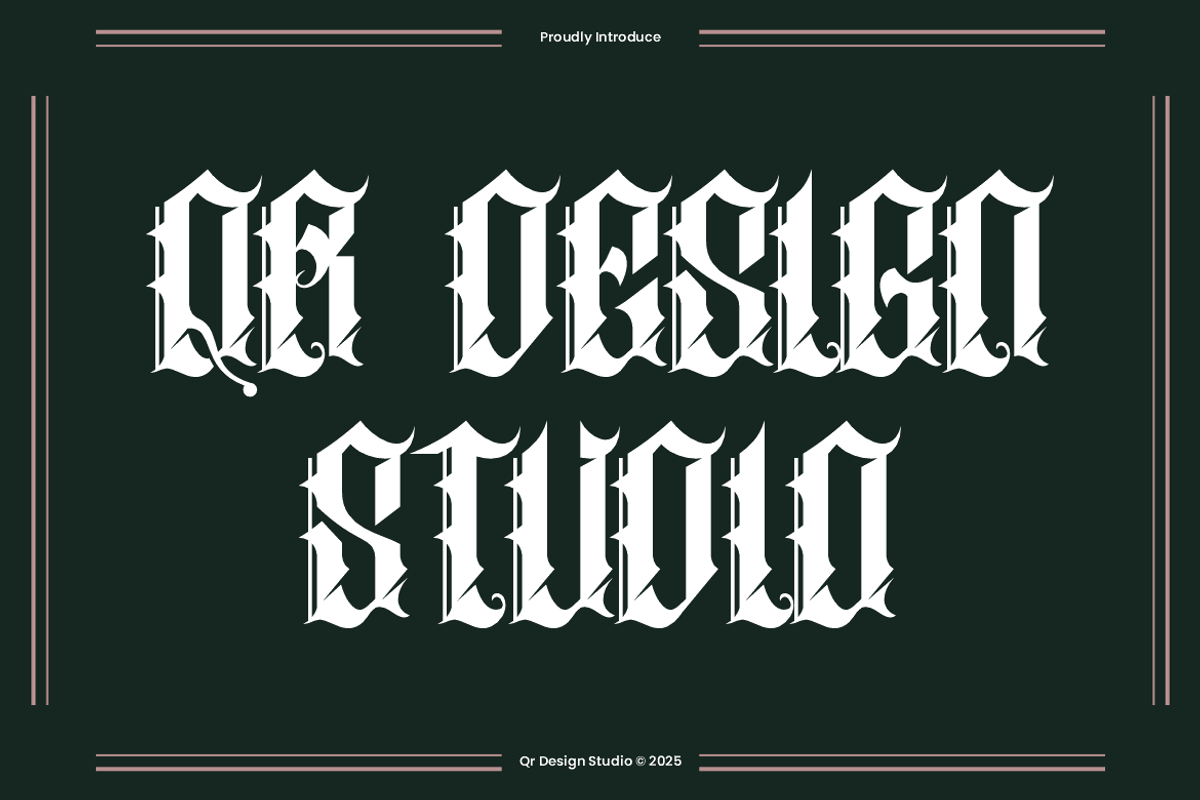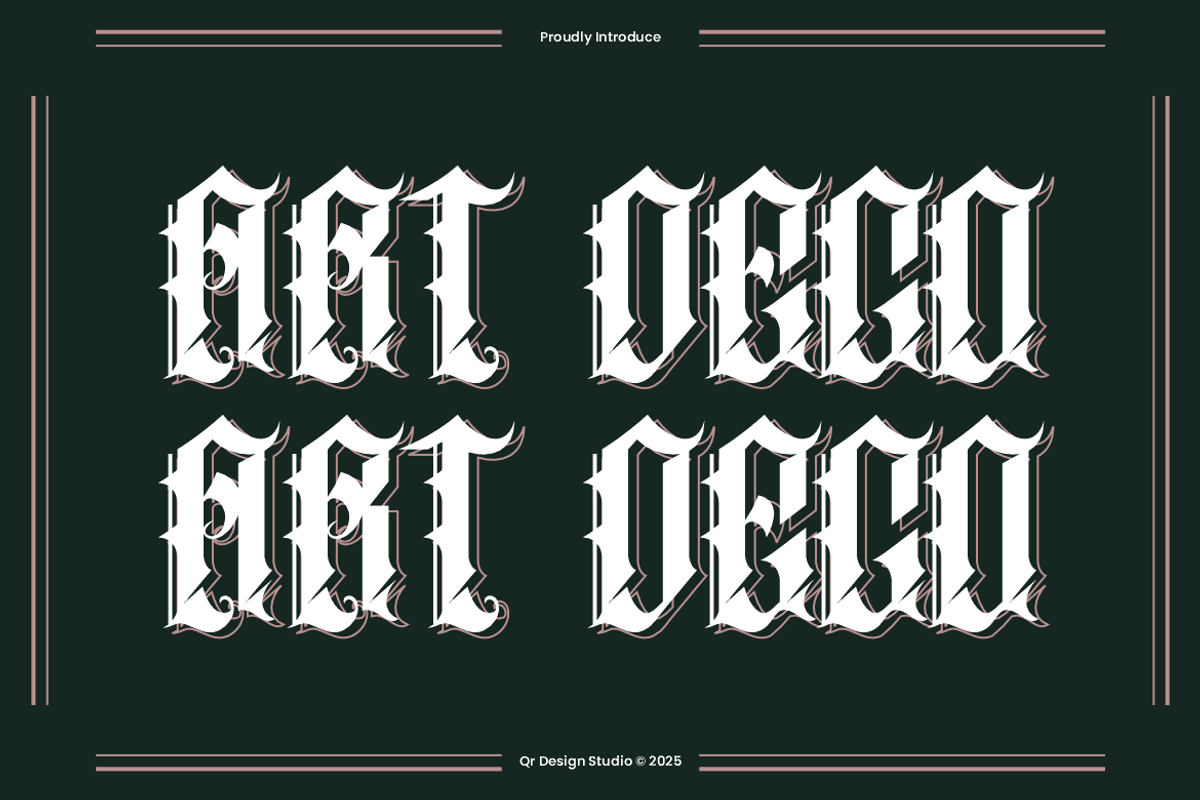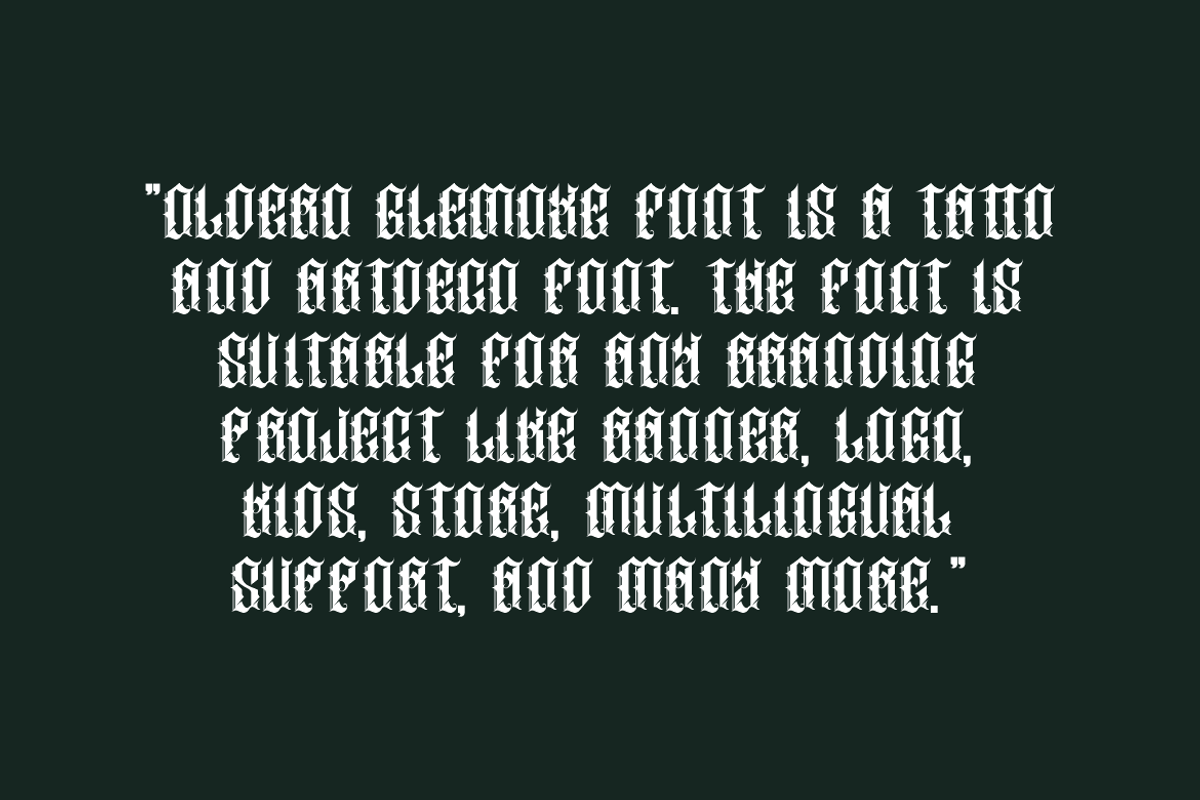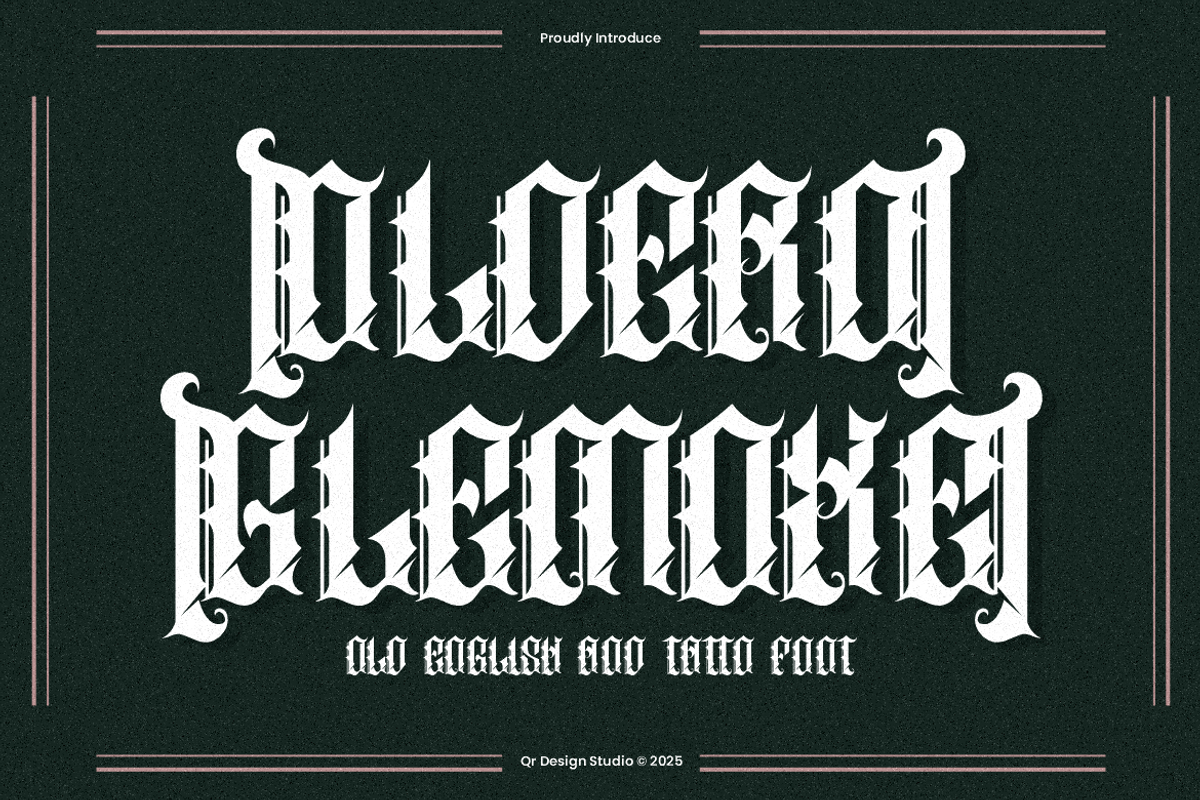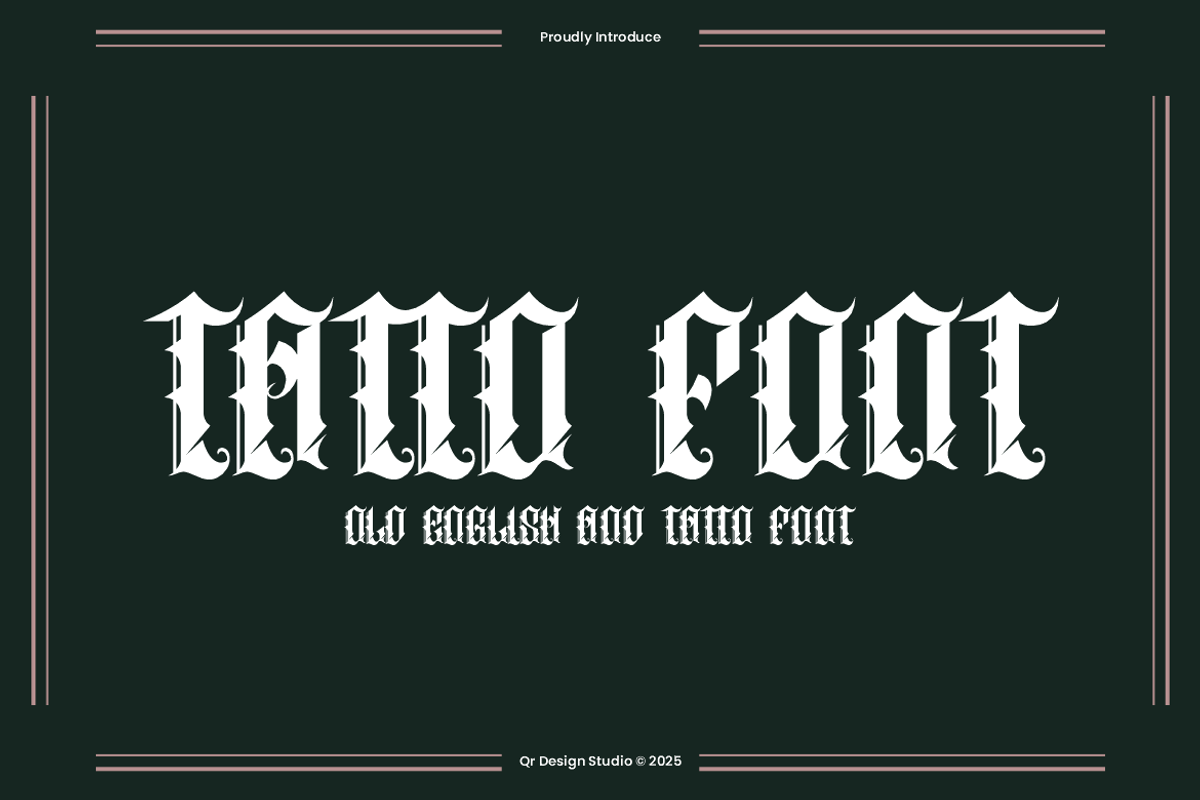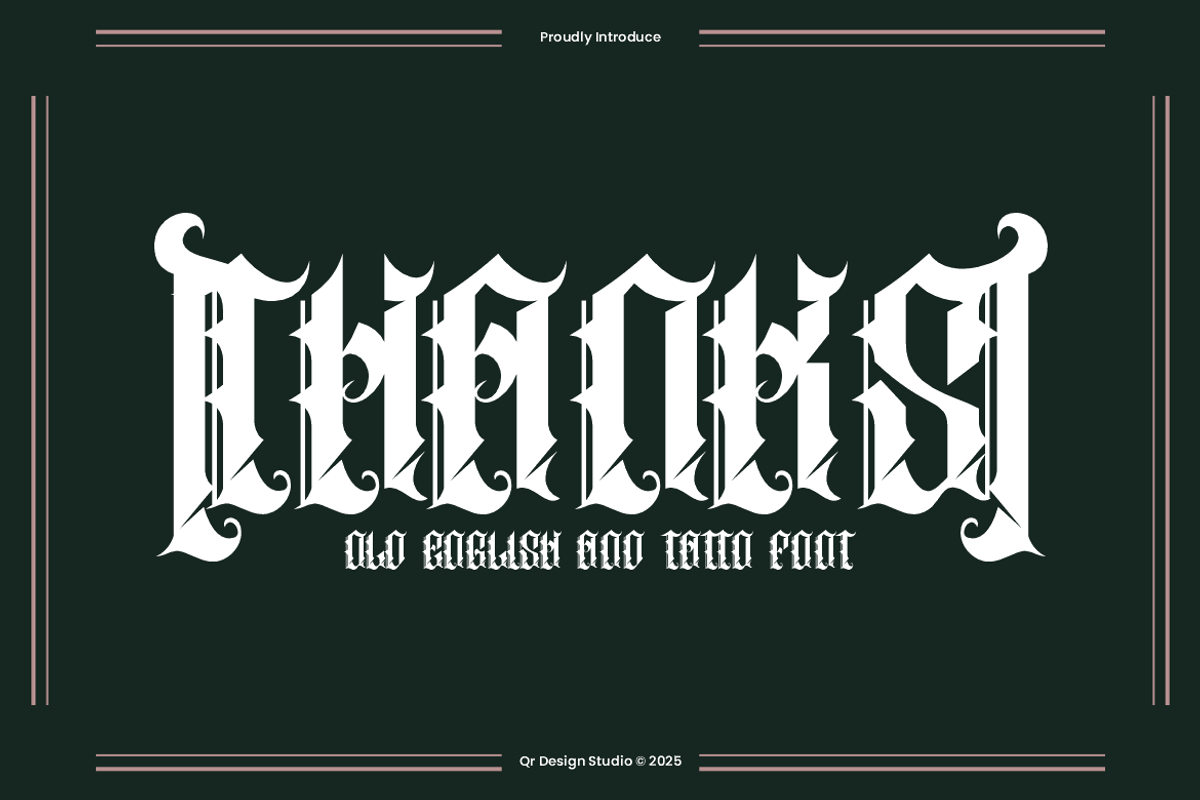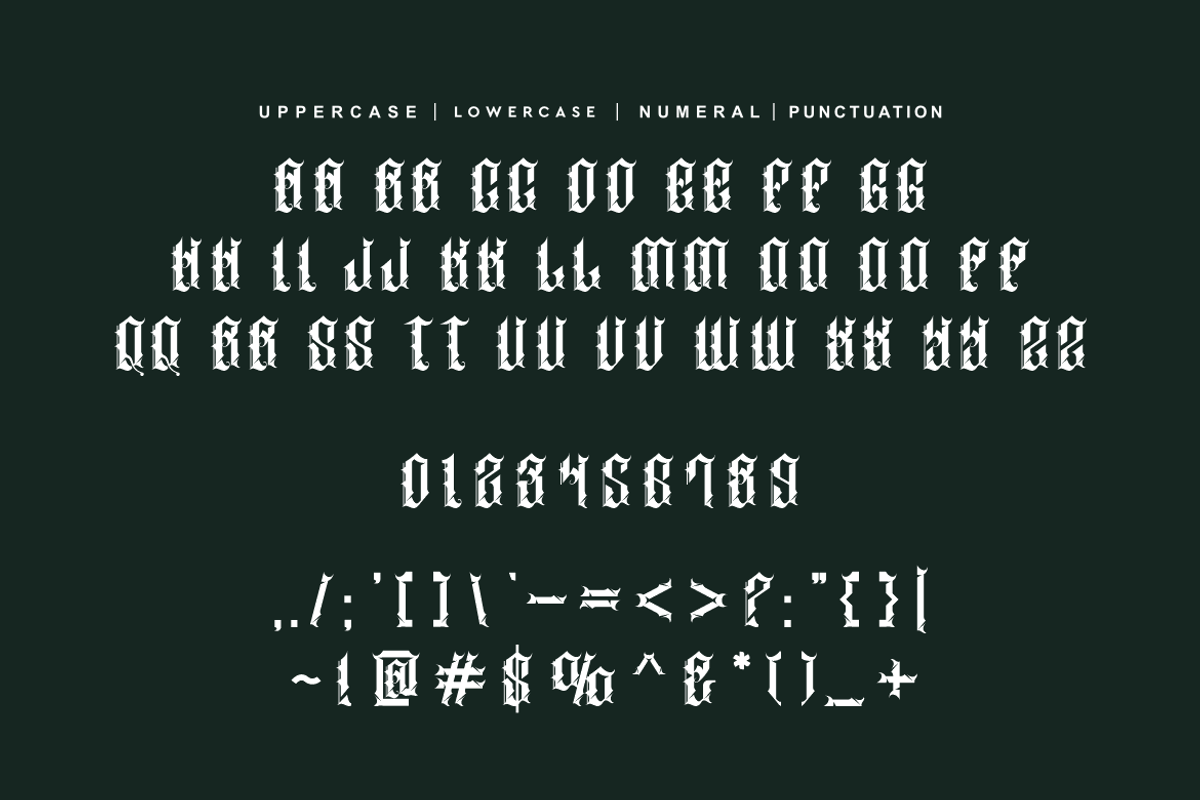
Oldero Glemoxe - Tattoo Font
Oldero Glemoxe Font is a bold and authentic display font. The font is suitable for any branding project like poster, logo, tattoo, and many more. Outstanding in a wide range of contexts.